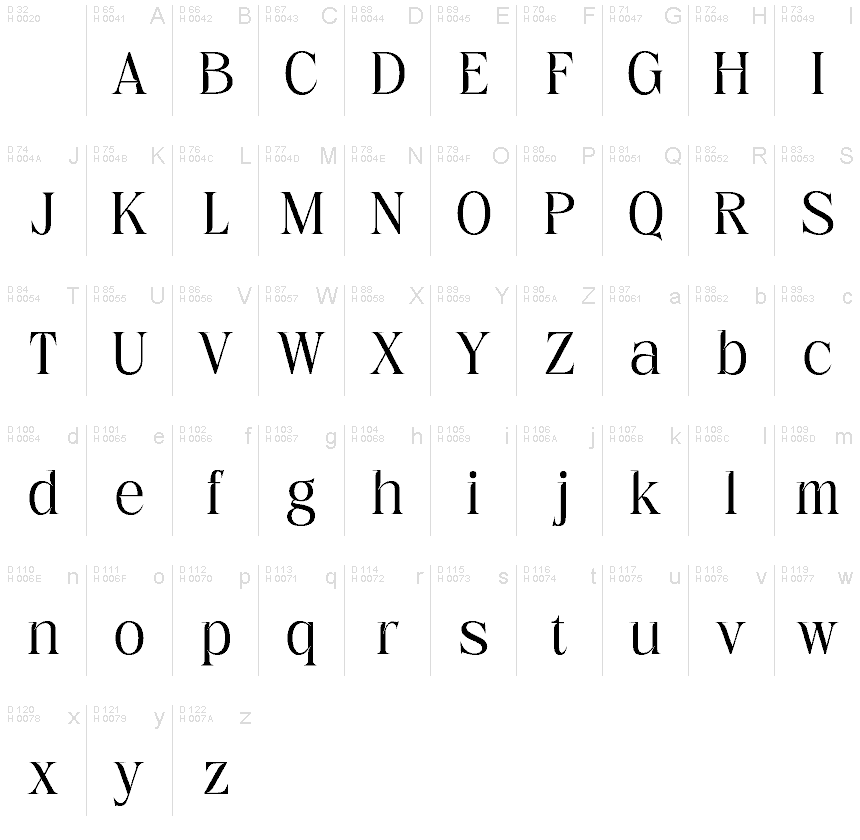
CS Pamela Regular Demo
CS Pamela font is a romantic serif from Craft Supply Co. Elegant, refined, and sophisticated, this typeface is all about luxury which it showcases with its graceful curves. From its simplicity emerges a mesmerizing glare that makes this font matchless in terms of charm and readability.
CS Pamela font is ideal for brand designs and stationery projects. Use it to create logos, business cards, product packaging designs, book covers, website designs, social media posts, sale posters or campaign banners. Enjoy many more uses with the free serif font!